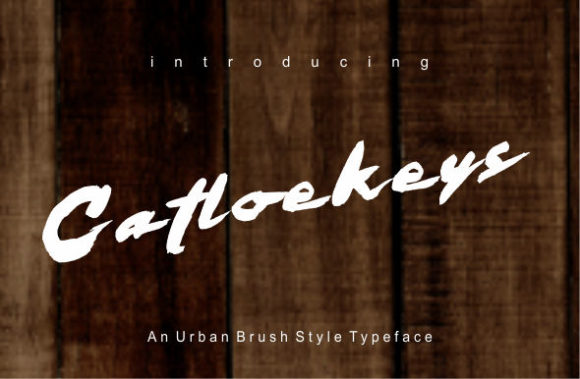
Introducing Catloekeys Font: The Ultimate Bold Handwritten Font for Designers and Crafters
Are you tired of using the same old fonts in your designs? Look no further! Catloekeys Font is here to revolutionize your typography game. This bold handwritten font is carefully handcrafted to become a true favorite among designers and crafters. Its casual charm makes it appear wonderfully down-to-earth, readable, and incredibly versatile.
The Characteristics of Catloekeys Font
So, what makes Catloekeys Font so special? Here are some of its key characteristics:
- Bold and Handwritten: Catloekeys Font is a bold handwritten font that exudes confidence and personality. Its bold strokes and fluid letterforms make it perfect for headlines, titles, and emphasis text.
- Casual Charm: Unlike other bold fonts, Catloekeys Font has a casual charm that makes it appear wonderfully down-to-earth. It’s perfect for designs that require a friendly and approachable tone.
- Readable: Despite its bold nature, Catloekeys Font is incredibly readable, even at smaller font sizes. This makes it perfect for body text, captions, and other small text elements.
- Versatile: Catloekeys Font is incredibly versatile and can be used in a wide range of design contexts, from digital designs to print materials.
Using Catloekeys Font in Your Designs
So, how can you use Catloekeys Font in your designs? Here are some ideas to get you started:
- Headlines and Titles: Use Catloekeys Font as a headline or title font to add emphasis and personality to your designs.
- Busy Backgrounds: Catloekeys Font looks outstanding on busy backgrounds, making it perfect for designs that require a bold and eye-catching font.
- Standalone Headline: Use Catloekeys Font as a standalone headline to create a striking and memorable design.
- Branding and Identity: Catloekeys Font is perfect for branding and identity designs that require a bold and personality-driven font.
Why Designers and Crafters Love Catloekeys Font
So, why do designers and crafters love Catloekeys Font? Here are some reasons:
- Unique Personality: Catloekeys Font has a unique personality that sets it apart from other fonts.
- Easy to Read: Despite its bold nature, Catloekeys Font is easy to read, making it perfect for designs that require a clear and concise message.
- Flexible: Catloekeys Font is incredibly flexible and can be used in a wide range of design contexts.
- High-Quality: Catloekeys Font is a high-quality font that is carefully crafted to ensure that it looks great in any design.
Tips for Getting the Most Out of Catloekeys Font
Here are some tips for getting the most out of Catloekeys Font:
- Experiment with Font Sizes: Experiment with different font sizes to find the perfect balance for your design.
- Pair with Other Fonts: Pair Catloekeys Font with other fonts to create a unique and visually appealing design.
- Use on Different Backgrounds: Use Catloekeys Font on different backgrounds to see how it interacts with different textures and colors.
- Play with Colors: Play with different colors to find the perfect match for your design.
In conclusion, Catloekeys Font is a bold handwritten font that is carefully handcrafted to become a true favorite among designers and crafters. Its casual charm, readability, and versatility make it perfect for a wide range of design contexts. Whether you’re looking for a font for headlines, titles, or body text, Catloekeys Font is a great choice. So why not give it a try and see how it can elevate your designs?